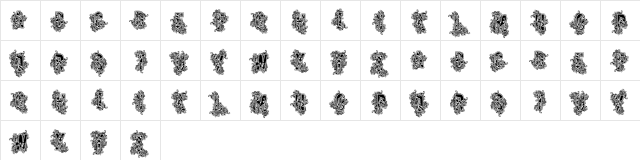
VTKS BEAUTY Regular
| Designer | douglas vitkauskas |
Design Context for VTKS BEAUTY Typeface
VTKS BEAUTY is a composed and adaptable typeface that performs quietly and consistently across a wide range of design contexts.